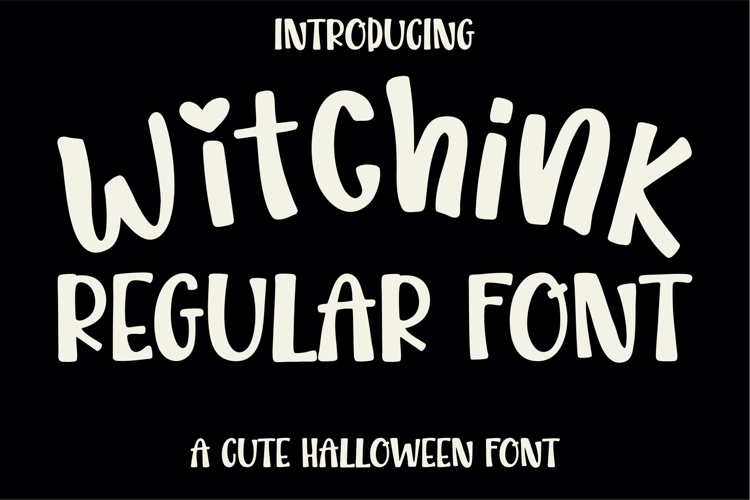
Witchink - Cute Halloween Font with Spooky Glyphs
Witchink is a playful and spooky Halloween font perfect for crafting, t-shirt designs, party invites, and more! This hand-drawn display font comes with uppercase and lowercase letters, numbers, punctuation, and 36 Halloween-themed silhouette glyphs including witches, ghosts, bats, pumpkins, skeletons, and more. Witchink brings a touch of cuteness to the spooky season with its bouncy, fun style and heartwarming details (like the heart dot on the “i”). It’s ideal for Cricut and Silhouette users, Procreate projects, and digital or printable designs. Plus, it supports multilingual characters for global creativity! Whether you're designing for kids, parties, or themed decor, Witchink adds charm to every Halloween project.